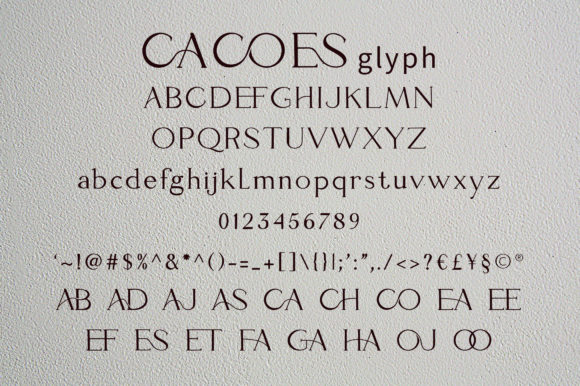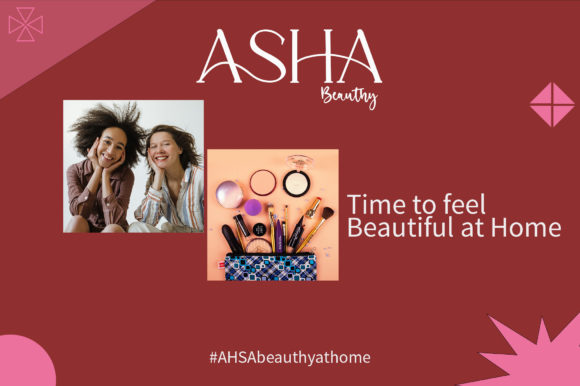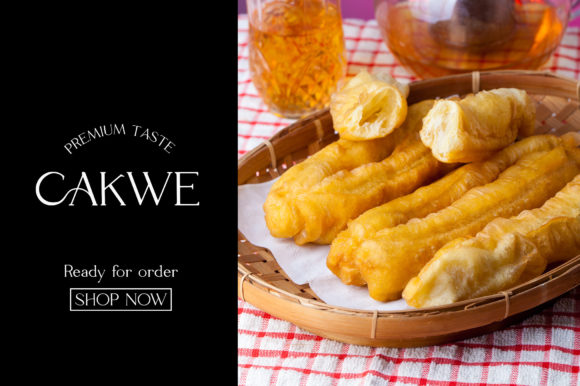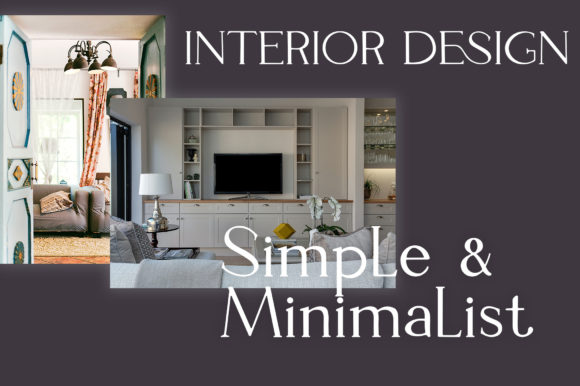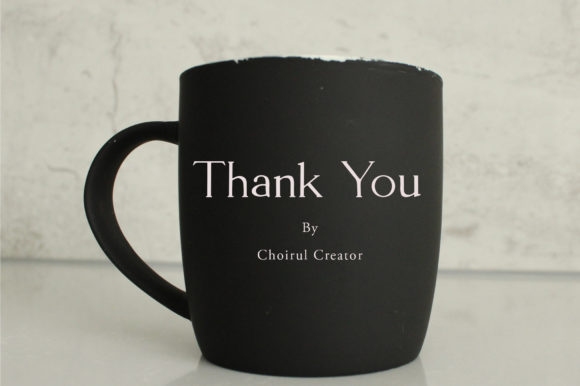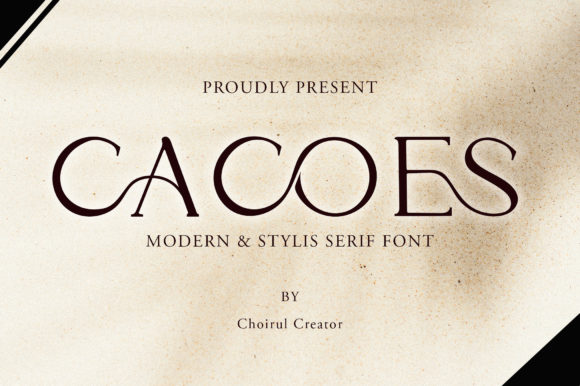
Cacoes Font: Elevate Your Designs with Modern Luxury
In the world of typography, a font can make or break a design. With the vast array of fonts available, it can be overwhelming to choose the perfect one. However, if you’re looking for a modern, luxurious, and thin lettered serif font that can elevate your designs, look no further than Cacoes Font. This stunning font is suitable for a wide variety of designs, and its neat and simple style makes it a versatile choice for any occasion.
The Characteristics of Cacoes Font
Cacoes Font is a modern serif font that exudes luxury and sophistication. Its thin lettering gives it a sleek and elegant look, making it perfect for designs that require a touch of refinement. The font’s neat and simple style ensures that it remains legible, even at smaller sizes, making it ideal for body text or captions. The subtle serifs add a touch of classic elegance, while the clean lines keep the font feeling fresh and contemporary.
Why Choose Cacoes Font?
So, why should you choose Cacoes Font for your next design project? Here are just a few reasons:
- Versatility: Cacoes Font is suitable for a wide range of designs, from luxury branding and advertising to packaging and digital media. Its versatility makes it an excellent addition to any designer’s font library.
- Legibility: The font’s clean lines and simple style ensure that it remains legible, even at smaller sizes. This makes it perfect for body text or captions, where readability is crucial.
- Elegance: Cacoes Font’s thin lettering and subtle serifs give it a luxurious and sophisticated feel, making it perfect for designs that require a touch of refinement.
- Modernity: The font’s modern design ensures that it feels fresh and contemporary, making it perfect for designs that require a modern aesthetic.
How to Use Cacoes Font in Your Designs
Cacoes Font can be used in a variety of design applications, including:
- Branding: Use Cacoes Font as a logo font or as part of a brand identity package to give your brand a luxurious and sophisticated feel.
- Advertising: The font’s elegance and legibility make it perfect for use in advertising, whether it’s for print or digital media.
- Packaging: Cacoes Font is ideal for use on packaging, where a clear and legible font is essential.
- Digital Media: The font’s modern design and clean lines make it perfect for use in digital media, including websites, social media, and email marketing.
Tips for Getting the Most Out of Cacoes Font
To get the most out of Cacoes Font, here are a few tips:
- Use it sparingly: While Cacoes Font is a beautiful font, it’s best used sparingly. Use it as a headline font or for emphasis, and pair it with a more traditional font for body text.
- Experiment with sizes: Don’t be afraid to experiment with different sizes to find the perfect balance for your design.
- Pair it with other fonts: Cacoes Font pairs well with a variety of other fonts, so don’t be afraid to experiment with different combinations.
In conclusion, Cacoes Font is a modern, luxurious, and thin lettered serif font that is suitable for a wide variety of designs. Its neat and simple style makes it a versatile choice for any occasion, and its elegance and legibility make it perfect for designs that require a touch of refinement. Whether you’re a designer, craft, or simply someone who appreciates beautiful typography, Cacoes Font is an excellent addition to any font library.